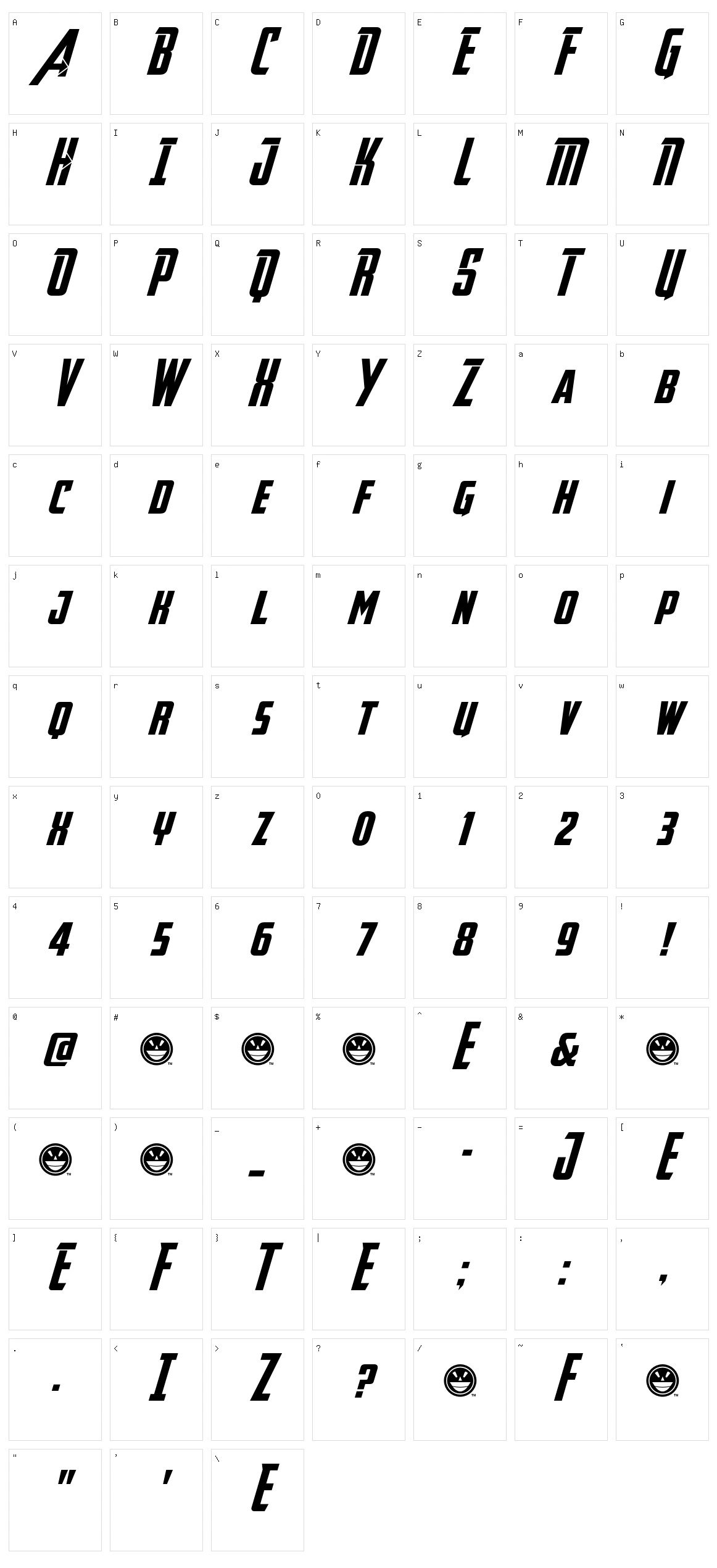
Avengeance Heroic Avenger
Assembled for the first time anywhere with complete Avengeance! Welcome to the newest addition to the Avengeance font family: HEROIC AVENGER.
Gather your team of avengers and craft the mightiest logo on earth with a collection of the most powerful glyphs in existence. The HEROIC variant of Avengeance will give you incredible results. Switch between normal, italic, bold and bold italic for mind-shattering results. No time for puny layouts. Grab a hammer and smack these letters around until the results are golden. Smack them a little harder and you might just see stars--or is that an arrow? Is that a giant man in red underwear? I can't say. There’s a wasp buzzing in my ear. But alas, let no trickster delay thee. The power to craft a proud statement of graphic import is finally at hand. But first you'll need to visit the website listed below and download my PDF KEYMAP, because some assembly is definitely required.